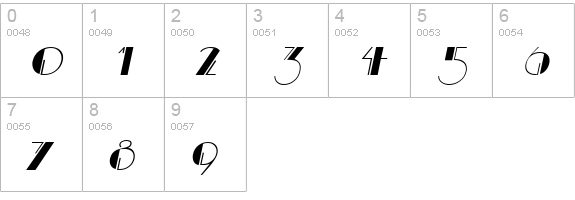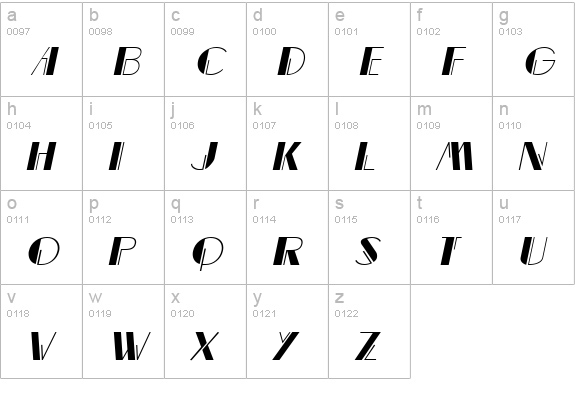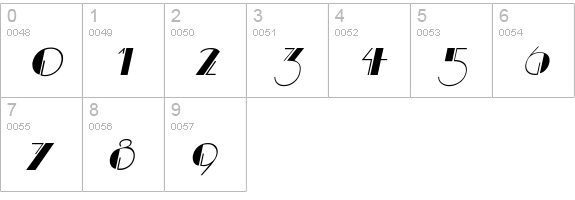
MarqueeMieux Italic Font Details
MarqueeMieux Italic is a distinctive, italic variant in the MarqueeMieux typeface family \xE2\x80\x94 well suited to design and typography projects.
MarqueeMieux Italic font is a stunning and elegant typeface that adds a touch of sophistication to any design project. Its graceful curves and stylish letterforms make it perfect for creating eye-catching headlines, logos, and branding materials. With its unique italic style, MarqueeMieux Italic font exudes an air of modernity and professionalism, making it a versatile choice for a wide range of design applications. Whether you're working on a website, a magazine layout, or a promotional poster, this font will elevate your design and captivate your audience. One of the most incredible aspects of MarqueeMieux Italic font is that it is available for free. That's right, you can download this exquisite font without spending a dime. It is freely available to download at FontsMarket.com, a reputable online platform for high-quality fonts. By choosing MarqueeMieux Italic font, you not only get a visually stunning typeface but also the convenience of accessibility. With just a few clicks, you can enhance your design projects with this elegant font and leave a lasting impression on your viewers. So why wait? Take advantage of this amazing opportunity and download MarqueeMieux Italic font today from FontsMarket.com.